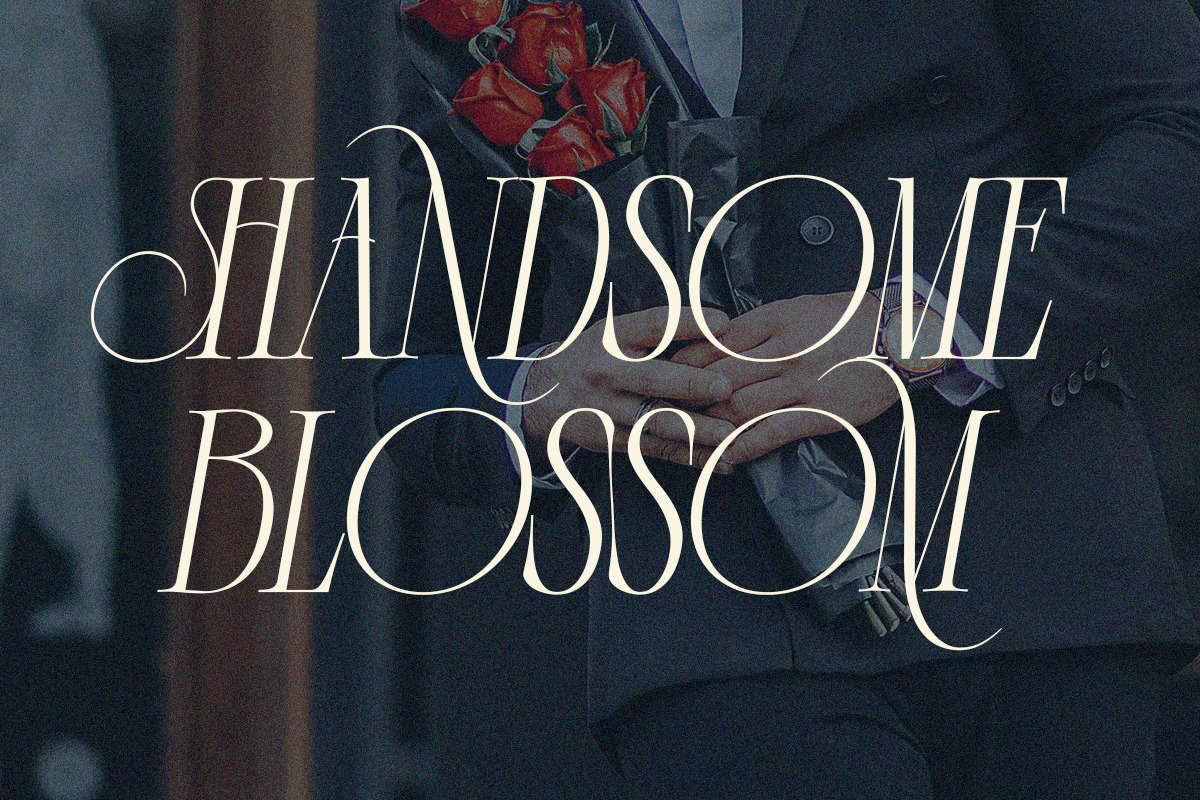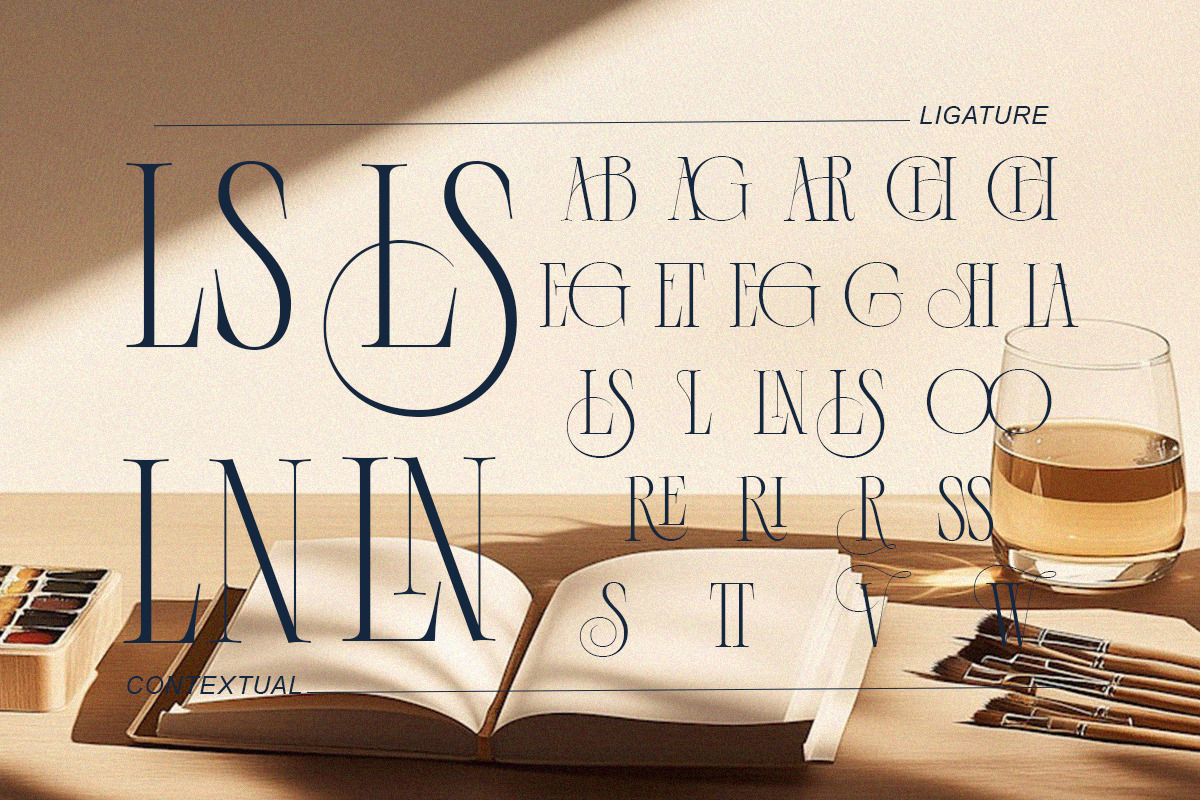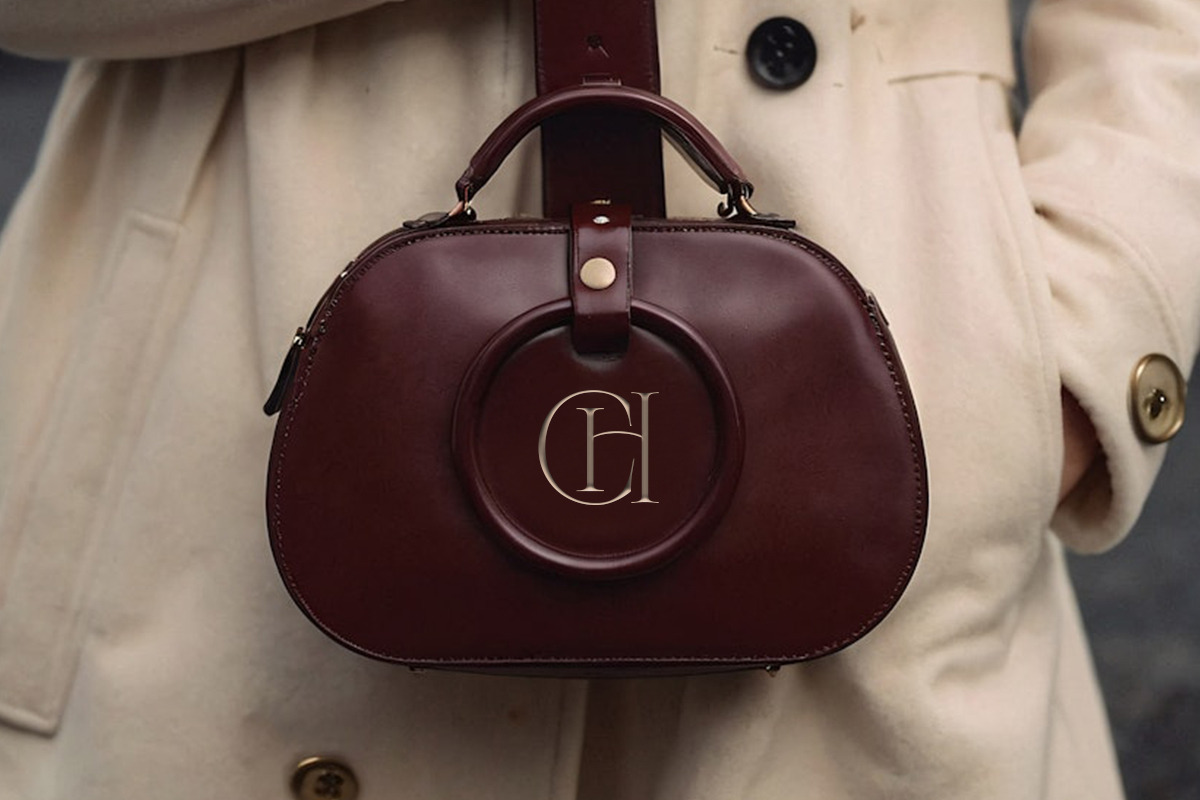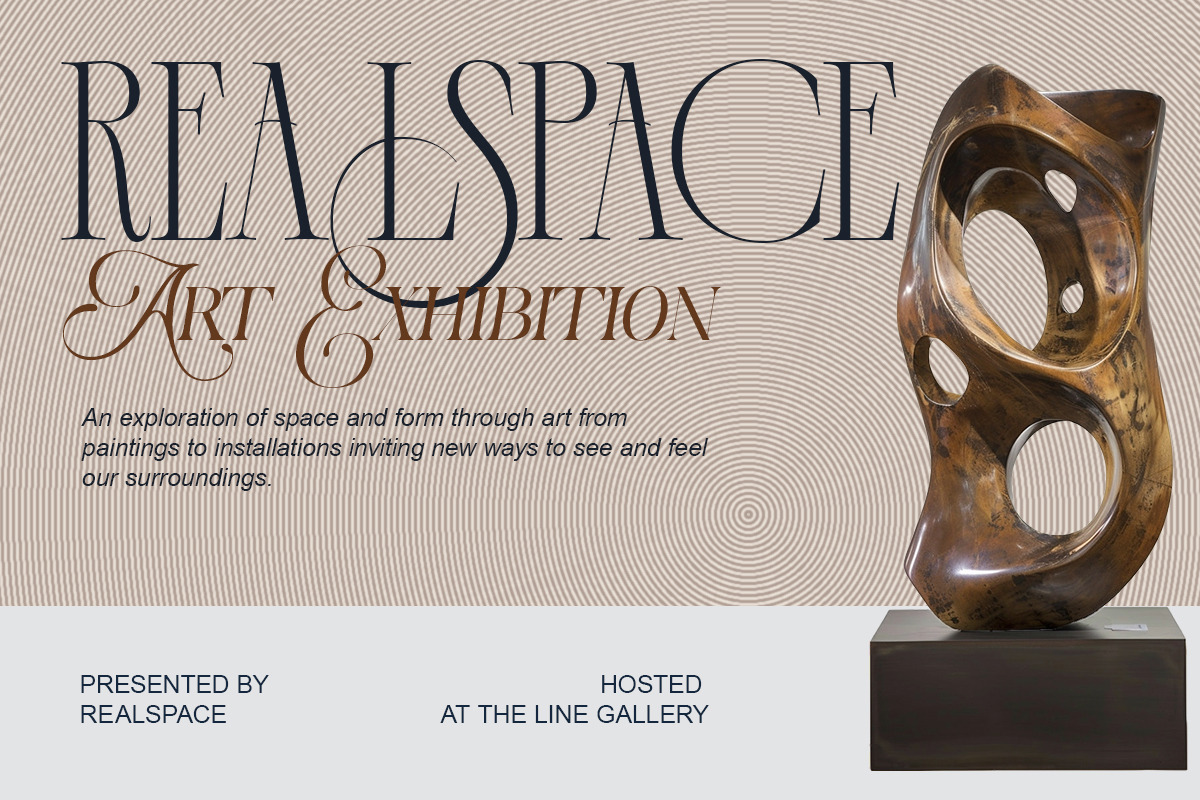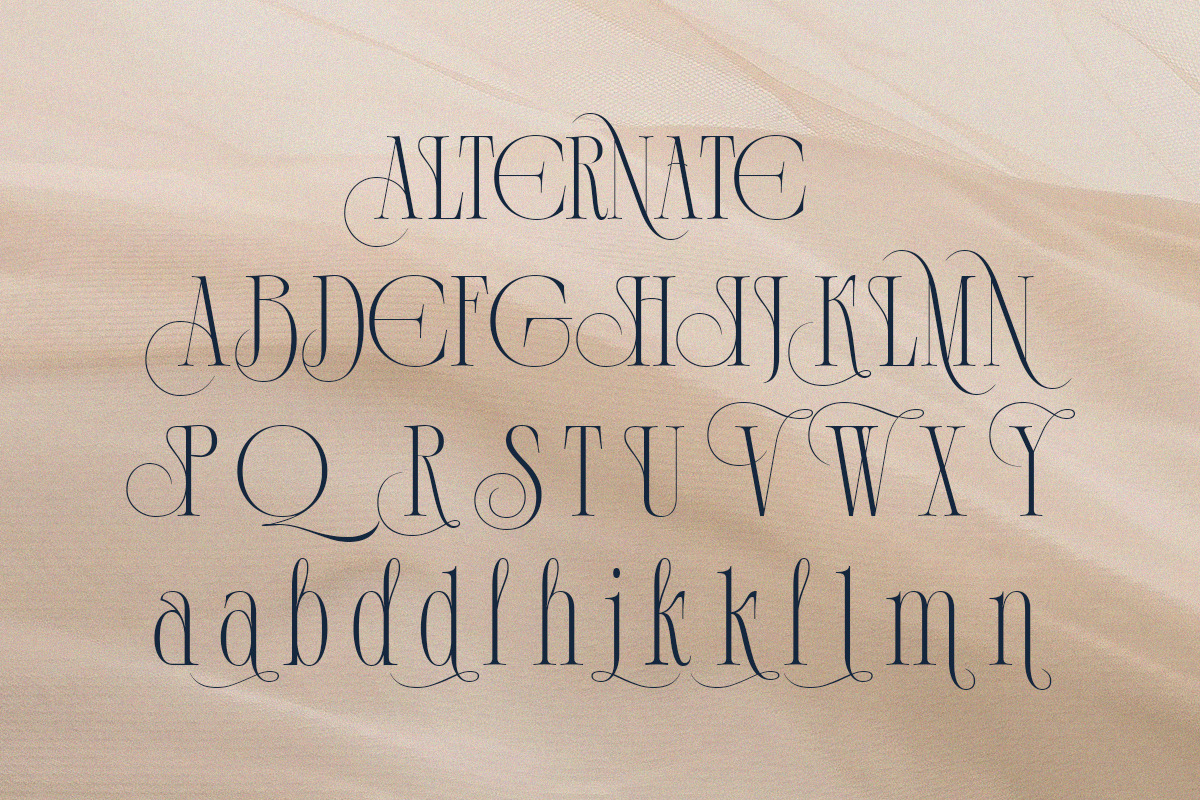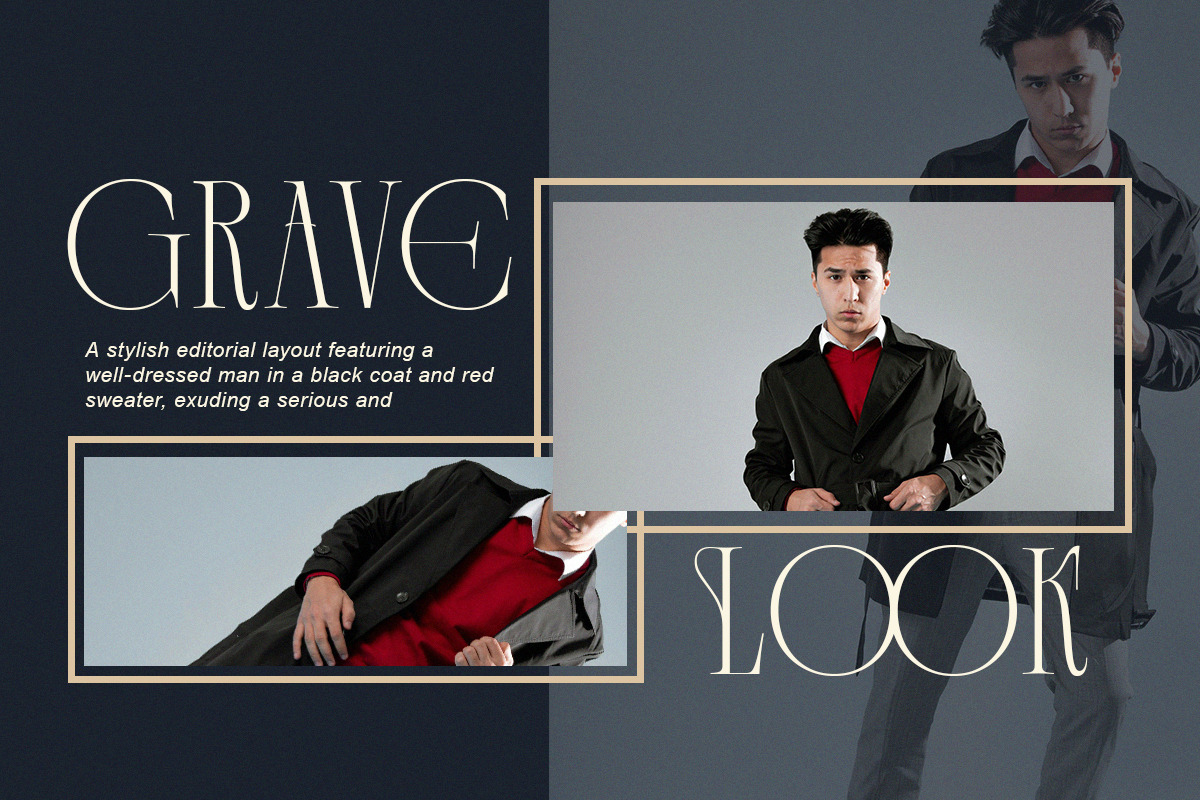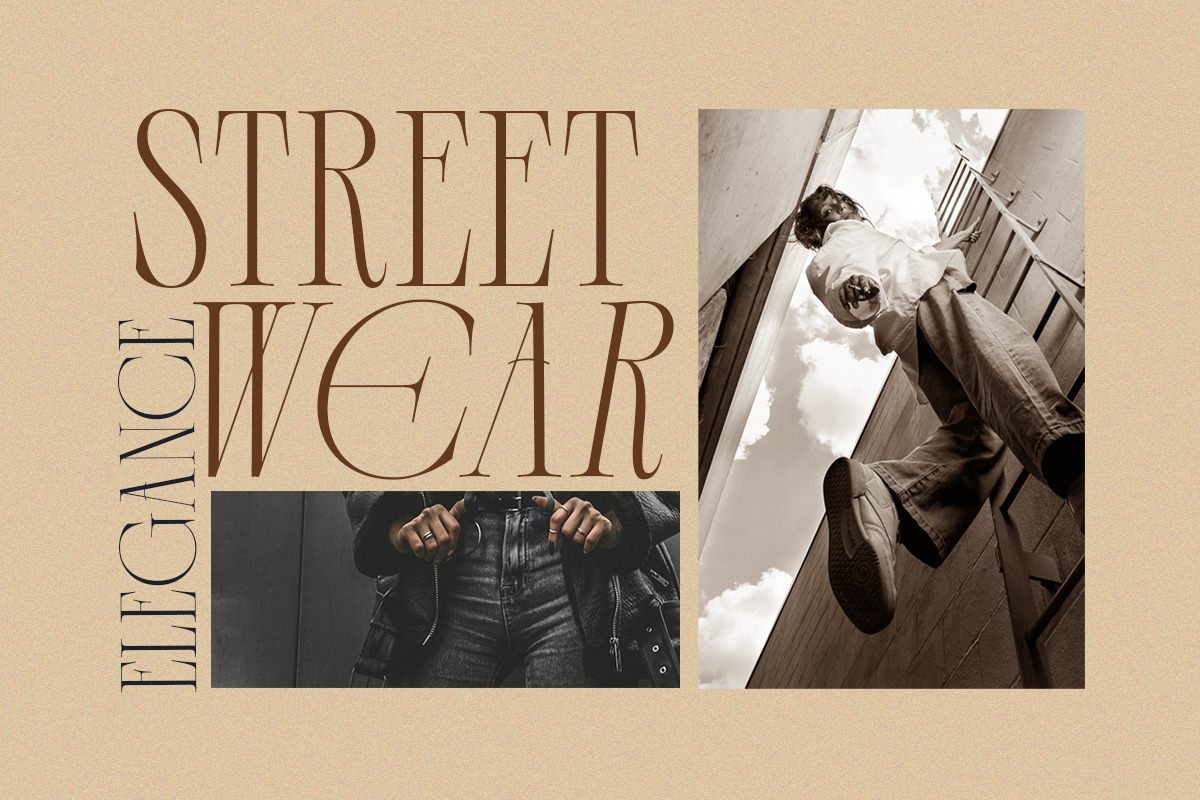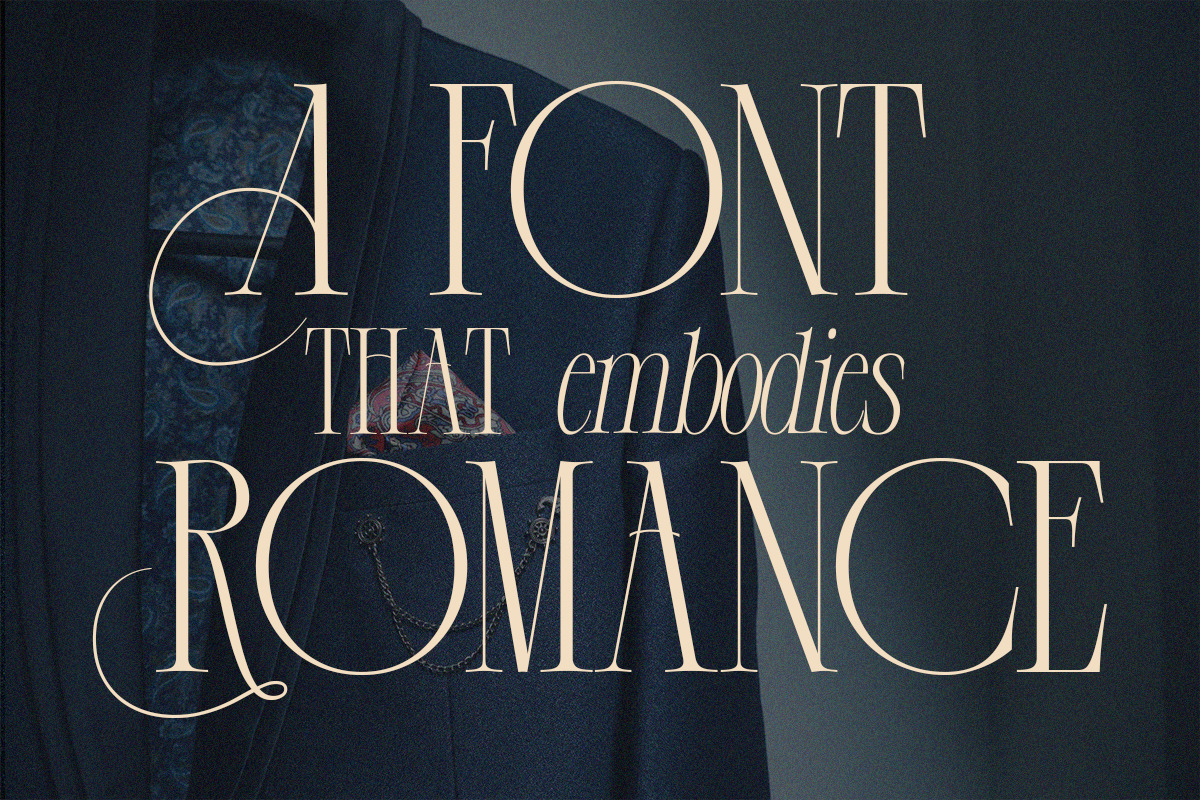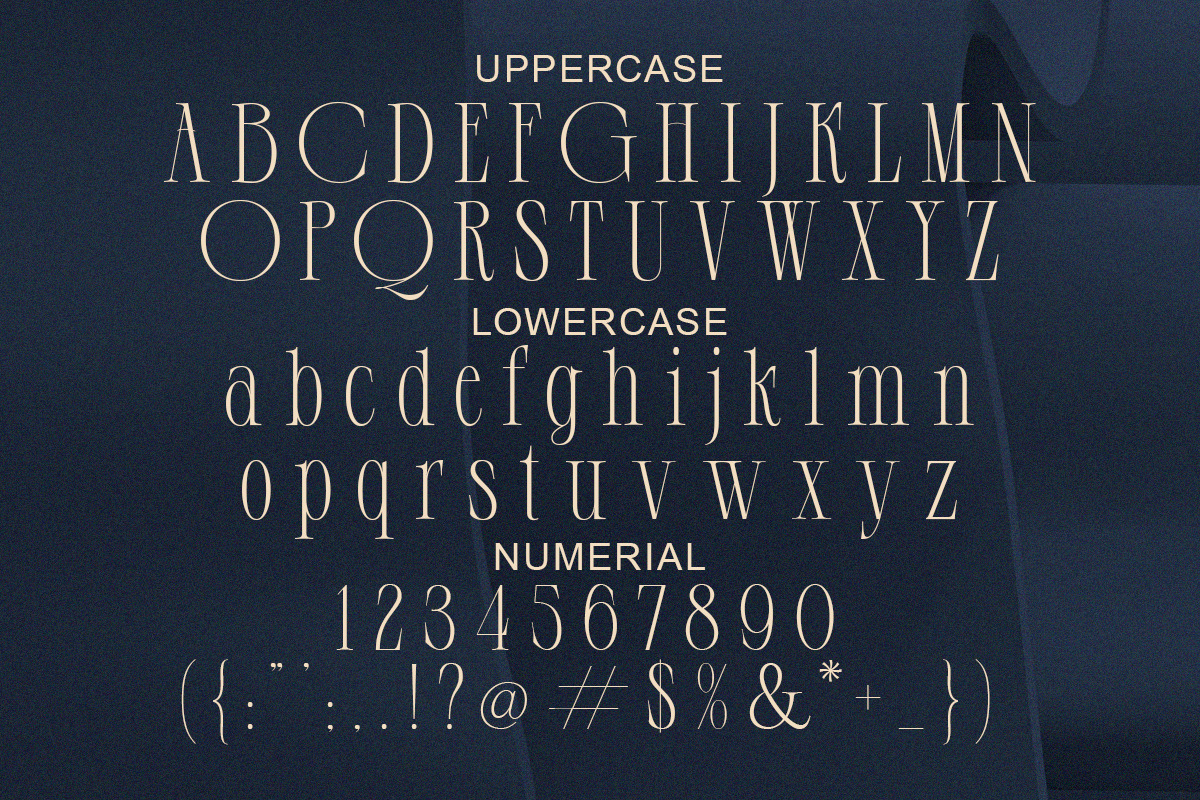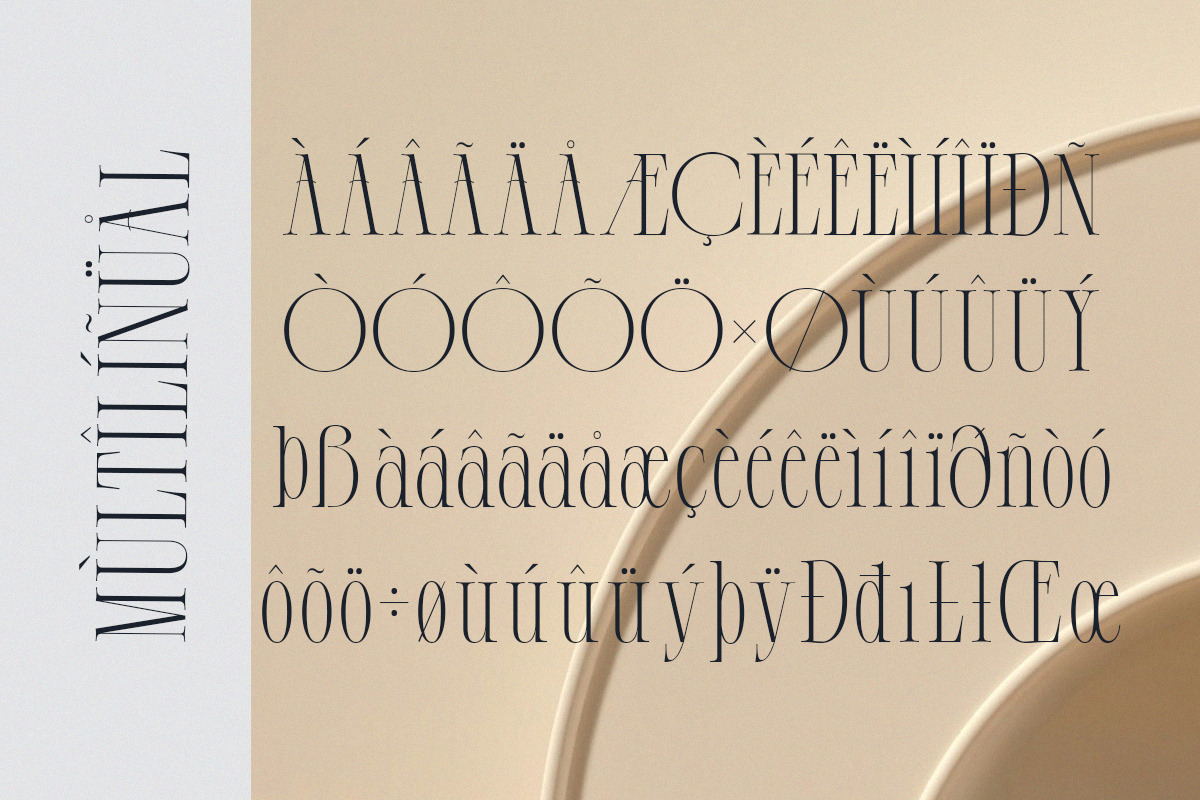
Demeris - Modern Refined Serif
Introducing Demeris – a sharp, tall, and graceful serif font with rich ligatures and a luxurious minimalist soul.
Introducing Demeris, a high-contrast modern serif font that blends elegance and power into every curve. With tall, graceful letterforms and stylish ligatures, this typeface is designed for premium branding, sophisticated editorial layouts, and timeless visual storytelling.
Crafted to embody confidence, class, and clarity, Demeris is your go-to choice for fashion magazines, logos, packaging, and refined digital designs.
- Elegant uppercase & lowercase
- Regular & Italic
- Numbers & symbols
- Opentype ligatures
- Editorial & magazine design
- Branding for luxury fashion & perfume
- Wedding & high-end event materials
- Logo for boutique or couture labels
- Web headers, social media, and more
Why Choose Demeris? This font isn’t just letters—it’s a statement. With razor-sharp serifs and elevated proportions, Demeris communicates authority, taste, and premium quality at first glance.
Whether you're crafting a sleek logo, designing a luxury lookbook, or setting headlines for an editorial masterpiece, Demeris speaks sophistication fluently.